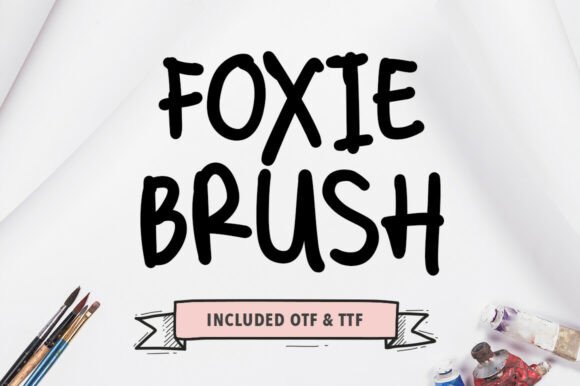
Introducing Foxie Brush Font: Unleash Your Creative Expression
Are you tired of using the same old fonts for your designs? Look no further than Foxie Brush Font, a bold and energetic handwriting font that’s sure to make a statement. With its thick, irregular strokes and distinct hand-inked character, Foxie Brush is the perfect choice for designers and crafters looking to add a touch of personality to their work.
The Characteristics of Foxie Brush Font
Foxie Brush Font is defined by its playful, hand-drawn quality, featuring visible variations in stroke thickness that mimic the pressure and raw texture of a felt-tip marker or brush pen. This unique characteristic gives the font a human, artisanal touch that’s perfect for designs that require an approachable yet bold visual identity.
The typeface boasts wide proportions and a confident presence, making it highly impactful for a variety of design applications. Whether you’re working on streetwear branding, youth-oriented event posters, expressive headlines, or creative social media graphics, Foxie Brush Font is sure to grab attention and leave a lasting impression.
Design Applications for Foxie Brush Font
So, what can you do with Foxie Brush Font? The possibilities are endless! Here are a few ideas to get you started:
- Streetwear Branding: Foxie Brush Font is a perfect fit for streetwear brands looking to make a bold statement. Its edgy, hand-drawn quality and confident presence make it ideal for logos, labels, and packaging.
- Youth-Oriented Event Posters: Create eye-catching posters for concerts, festivals, and other events with Foxie Brush Font. Its playful, energetic vibe is sure to appeal to a younger audience.
- Expressive Headlines: Add some personality to your headlines with Foxie Brush Font. Its bold, irregular strokes make it perfect for grabbing attention and adding emphasis.
- Creative Social Media Graphics: Take your social media graphics to the next level with Foxie Brush Font. Use it to create engaging, shareable content that stands out from the crowd.
Why Choose Foxie Brush Font?
So, why should you choose Foxie Brush Font for your next design project? Here are just a few reasons:
- Unique and Memorable: Foxie Brush Font is a one-of-a-kind typeface that’s sure to make your designs stand out. Its bold, hand-drawn quality and irregular strokes make it instantly memorable.
- Versatile: Foxie Brush Font is versatile and adaptable, making it suitable for a wide range of design applications. Whether you’re working on a logo, poster, or social media graphic, Foxie Brush Font is a great choice.
- Easy to Read: Despite its bold, expressive quality, Foxie Brush Font is surprisingly easy to read. This makes it perfect for designs that require a clear, concise message.
Tips for Using Foxie Brush Font
Here are a few tips for getting the most out of Foxie Brush Font:
- Experiment with Color: Foxie Brush Font looks great in a variety of colors, so don’t be afraid to experiment. Try pairing it with bold, bright colors for a statement look.
- Play with Texture: Add some extra texture to your designs by layering Foxie Brush Font over other textures or patterns.
- Mix and Match: Don’t be afraid to mix and match Foxie Brush Font with other fonts and typefaces. Its bold, expressive quality makes it a great choice for pairing with simpler fonts.
Foxie Brush Font is a bold, energetic handwriting font that’s perfect for designers and crafters looking to add a touch of personality to their work. With its unique, hand-drawn quality and confident presence, it’s ideal for a wide range of design applications, from streetwear branding to creative social media graphics. So why not give Foxie Brush Font a try and see what amazing designs you can create?